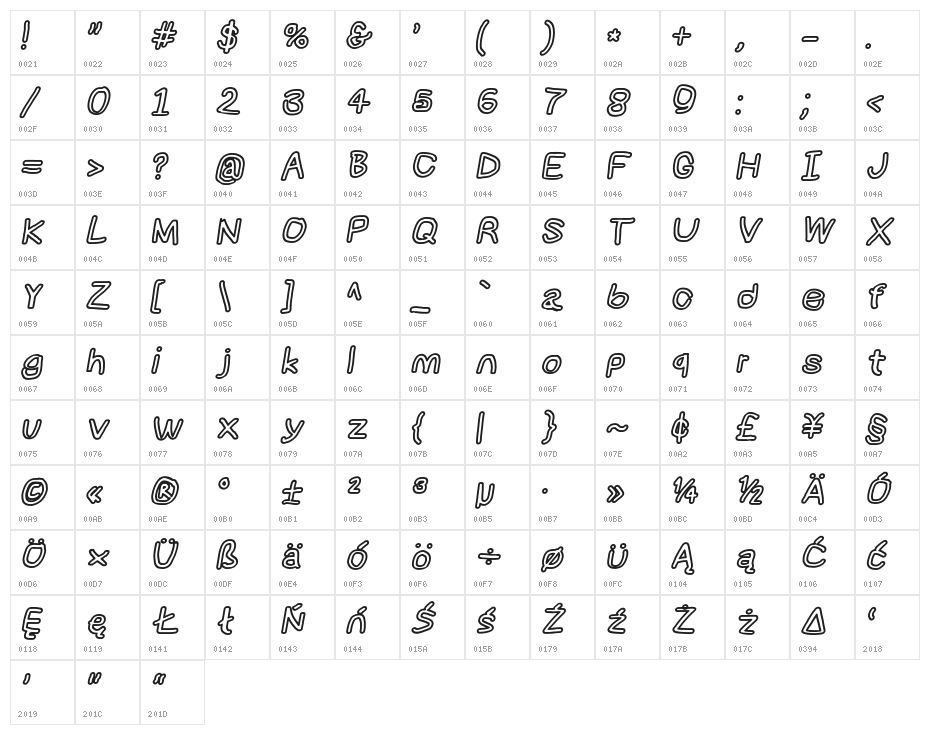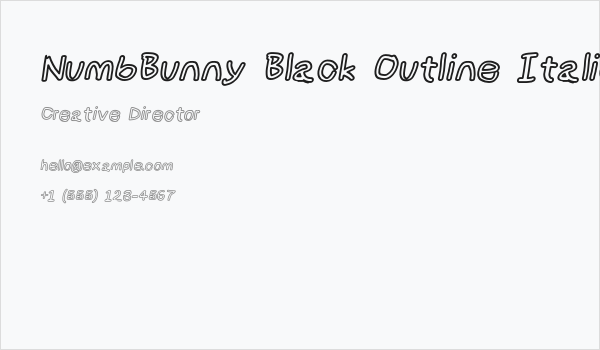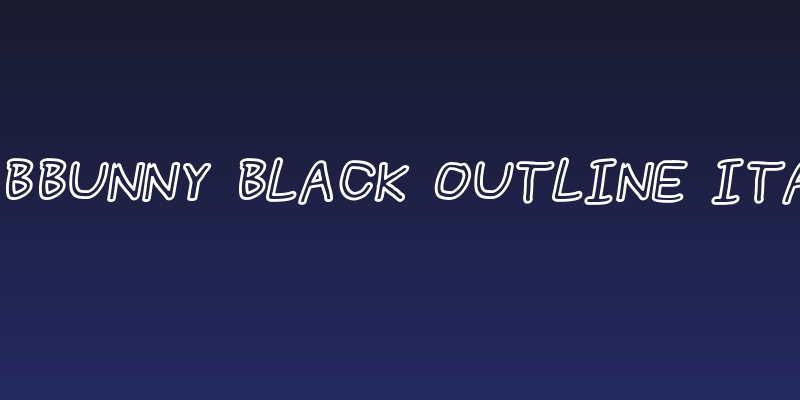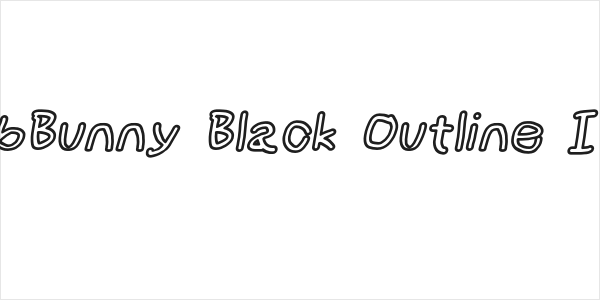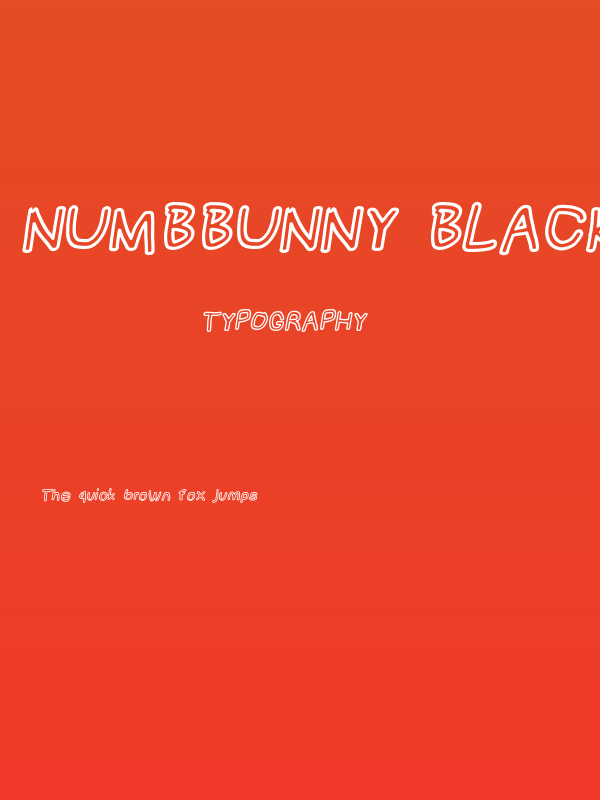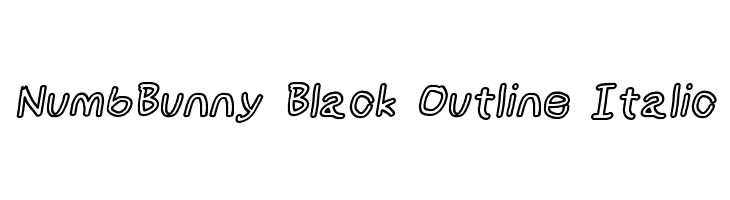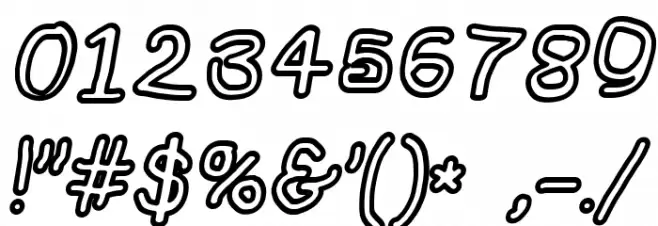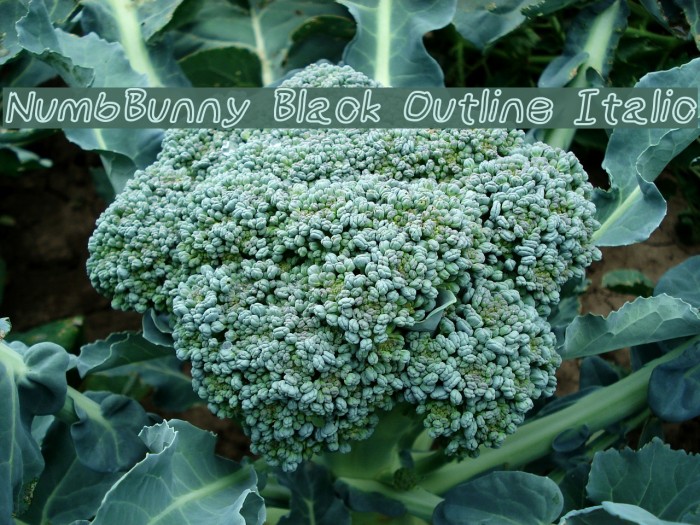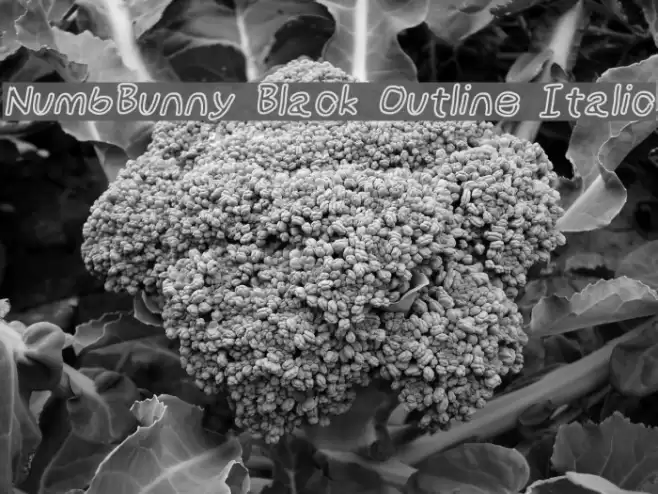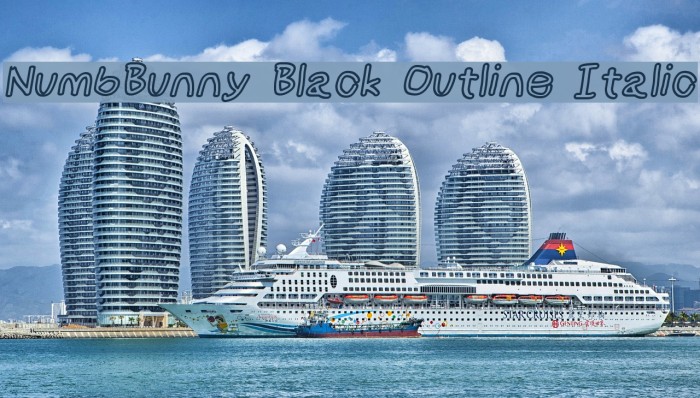
NumbBunny Black Outline Italic Font
NumbBunny Black Outline Italic Description
This playful and bold font features a unique outline style that gives it a distinctive and eye-catching appearance. The characters are slightly italicized, adding a dynamic and energetic feel. The uppercase and lowercase letters maintain a consistent style, with rounded edges and a friendly, approachable look. The numbers and special characters are designed to match the overall aesthetic, making this font versatile for various creative projects. Its outlined nature makes it stand out, perfect for designs that require a bold statement.
| Overall Style | Playful, Modern |
| Proposed Projects | Ideal for children's book covers, playful branding, posters, and creative social media graphics. |